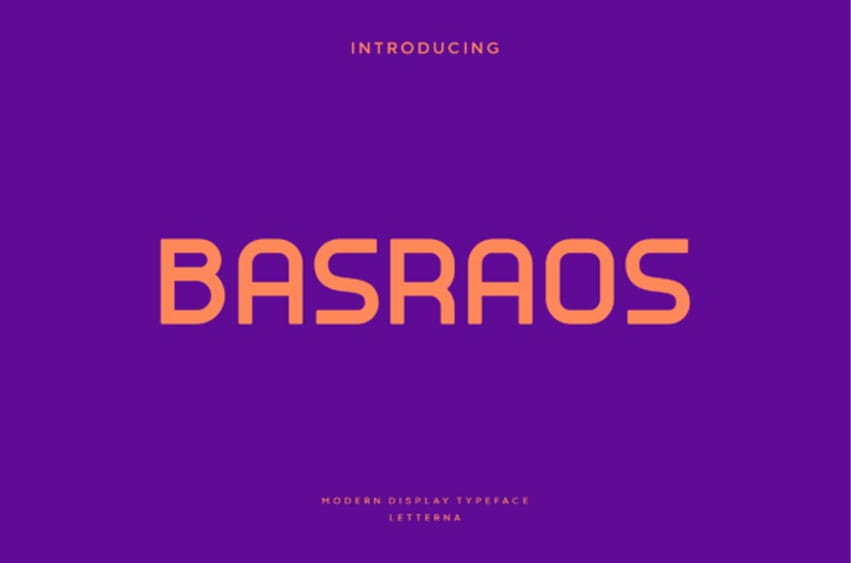
Basraos Font is a great art deco-themed typography for headlines, branding, and logo designs. Coming with a simple yet modern and elegant look, the smooth angular shape makes it look classy.
It’s great for posters, headlines, and any location where you need large text but have tight space.